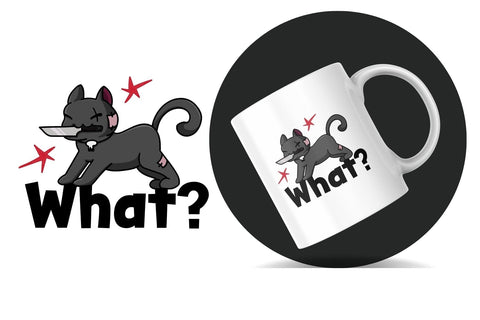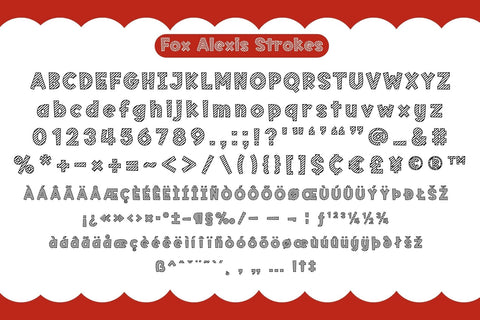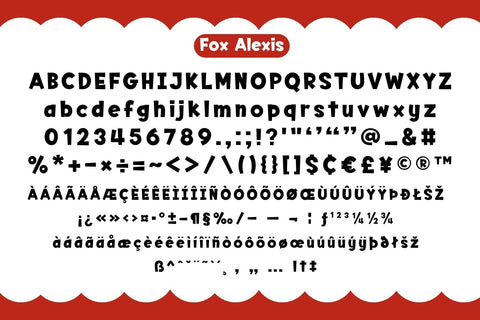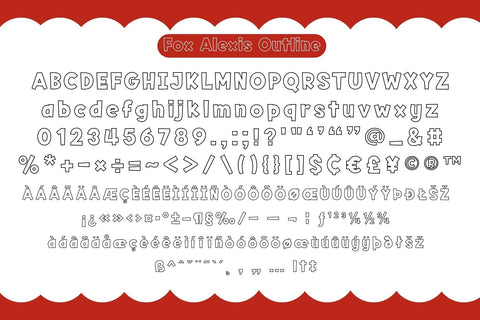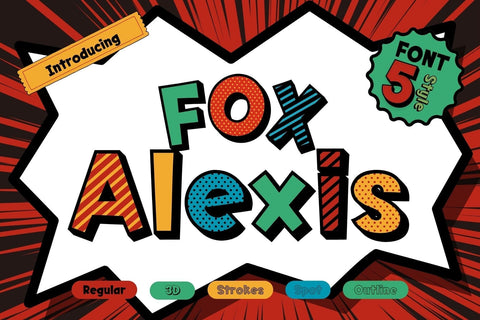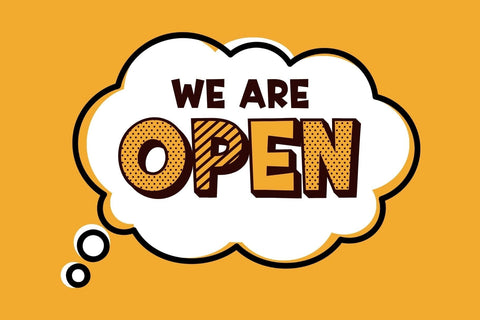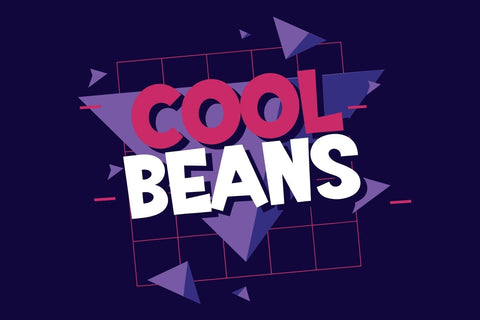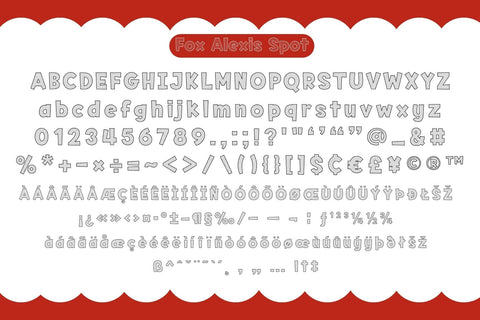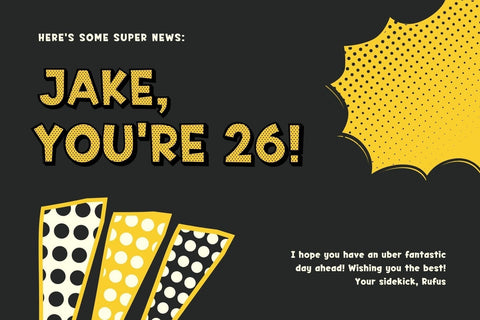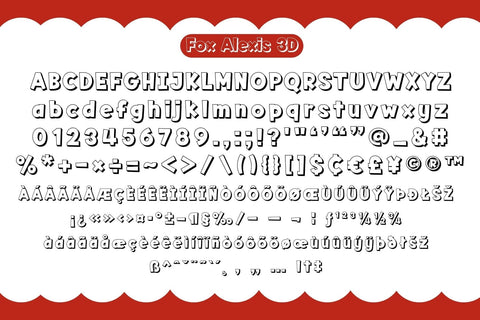
Fox Alexis 5 Fonts Style
Fox Alexis is a 5 style font that cool and playful display font that adds a captivating and energetic touch to your designs. Its main feature is its vibrant and expressive design, allowing you to create attention-grabbing headlines, t-shirt typography, banners, product labels, and more. With its versatility and eye-catching presence.